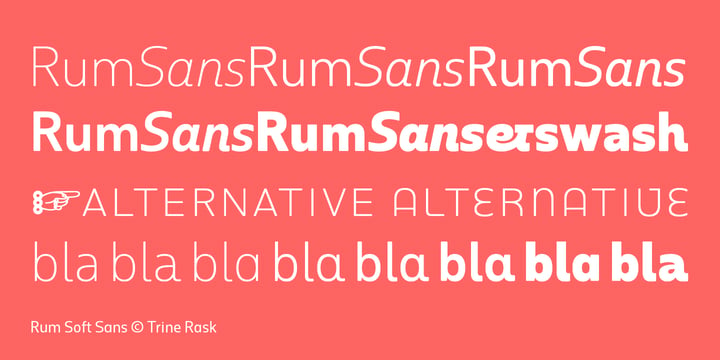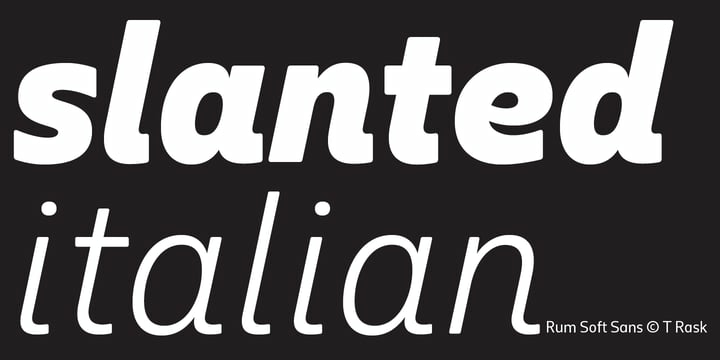
Rum Soft Sans Font Family
Rum Soft Sans Font FamilyRum Soft Sans Font is a soft version of Rum Sans with softly rounded outer corners. It is designed inside out based on modular counters. It is both very simple and very delicate in detail, the large character set with alternative characters makes it possible to create a more soft and round text image.
Rum SoftSans is part of a larger type family, a text & display family suitable for any purpose, any media, any size. A humanistic modular sans serif in five weights containing small caps, italic, swashes, alternative characters, old style, lining, tabular & proportional figures. Design date: 2001-2021
The complete family consists of sans serif & serif in both sharp and soft version.